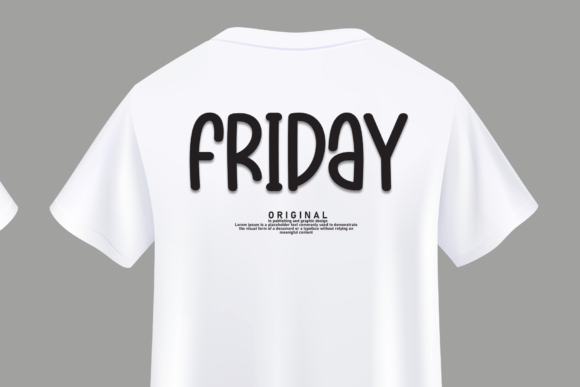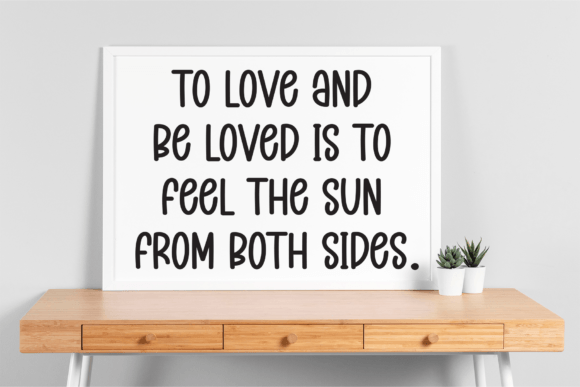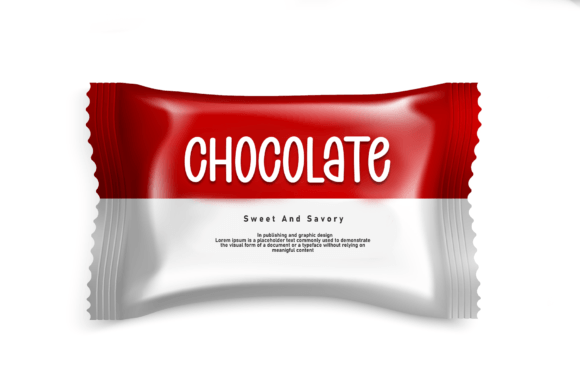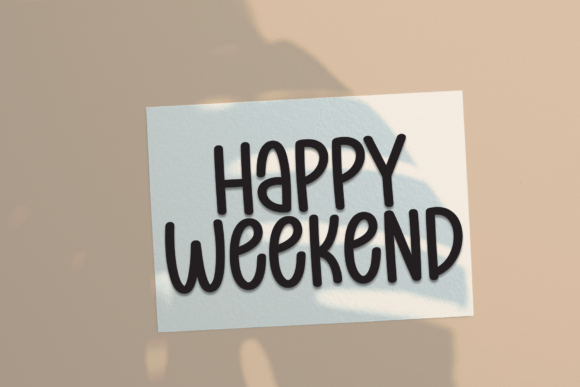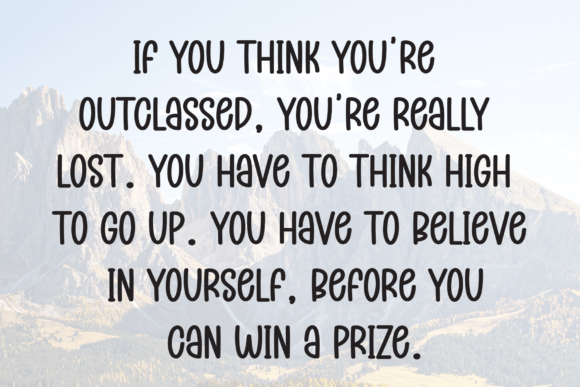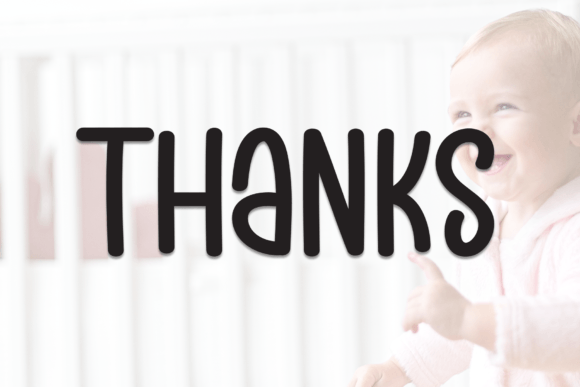
The Power of Handwritten Charm: Unleashing Your Creativity with the Baby Groovy Font
You’ve been staring at your blank design canvas for what feels like an eternity, and suddenly, a spark of inspiration hits. You envision a whimsical logo, a playful invitation, or a sweet quote that will capture the hearts of your audience. The challenge lies in bringing your creative vision to life, and that’s where the perfect font comes in.
Meet the Baby Groovy Font, a delightful handwritten font that embodies the essence of warmth and friendliness. This charming font is designed to add a personal touch to your designs, making it an ideal choice for a wide range of projects. Whether you’re a seasoned designer or a creative enthusiast, the Baby Groovy Font is sure to be your new go-to companion. Its versatility and unique style make it an invaluable asset for any design project.
Baby Groovy Font Key Features
- Font Size: Supports a wide range of font sizes, from 8pt to 72pt, making it suitable for various design applications
- Resolution: Optimized for high-resolution displays, ensuring crisp and clear text rendering at 300 DPI and above
- Unique Characteristics: Features a playful, hand-drawn style with rounded edges and subtle flourishes, perfect for creating a fun and whimsical atmosphere
- Language Support: Supports a wide range of languages, including Latin, Cyrillic, and Greek alphabets, making it suitable for international design projects
- Kerning and Ligatures: Includes advanced kerning and ligature features to ensure smooth text rendering and a professional finish
Baby Groovy Font Review
Overall, I’d say the Baby Groovy Font is a fun, playful addition to any design project. ✨ The unique, hand-drawn style really makes it stand out from more traditional fonts. It’s perfect for projects that need a touch of whimsy or a retro vibe.
- Works well for: ✨ children’s books, ✨ party invitations, ✨ advertising campaigns with a playful tone
- Consistent letterforms and spacing make it easy to read and use
- Great for creating a sense of nostalgia and playfulness
However, there are a few limitations to keep in mind. ⚠️ The font is not ideal for formal or professional projects, as it can come across as too childish. Additionally, some characters may not be as detailed or nuanced as you’d like, which can make it harder to use in certain situations.
Overall, I think the Baby Groovy Font is a great choice for designers looking to add some personality to their work. While it may not be perfect for every project, it’s definitely worth considering for the right type of design.
Use the Baby Groovy Font for:
1. Children’s party invitations and decorations.
2. Baby shower invitations and decorations.
3. Kid-friendly branding and marketing materials.
For optimal results, pair the Baby Groovy Font with bright, playful colors and fun graphics.
Alternatives to Baby Groovy Font
Great Vibes Font is a modern, playful font perfect for creating a fun and energetic atmosphere. It’s ideal for use in headings, titles, and slogans where a bold and cheerful tone is required. Great Vibes Font has a more streamlined and modern feel compared to Baby Groovy Font, which is more vintage and whimsical.
Pacifico Font is a beautiful, elegant script font that’s perfect for adding a touch of sophistication to your designs. It’s ideal for use in headings, titles, and body text where a relaxed and casual tone is required. Pacifico Font has a more refined and polished feel compared to Baby Groovy Font, which is more playful and quirky.
Alex Brush Font is a beautiful, handwritten font that’s perfect for creating a personal and creative atmosphere. It’s ideal for use in headings, titles, and body text where a unique and artistic tone is required. Alex Brush Font has a more organic and hand-drawn feel compared to Baby Groovy Font, which is more digital and playful.